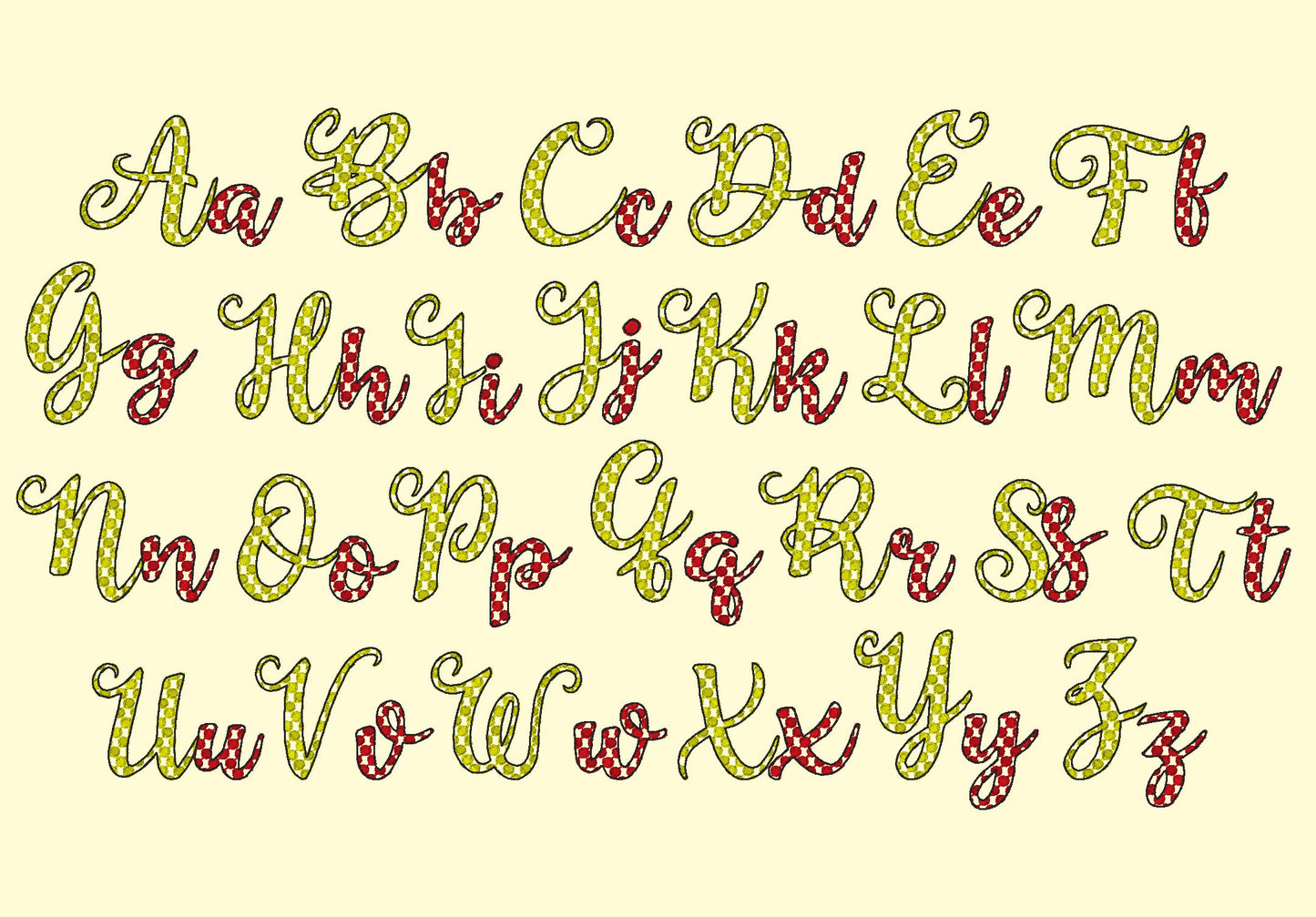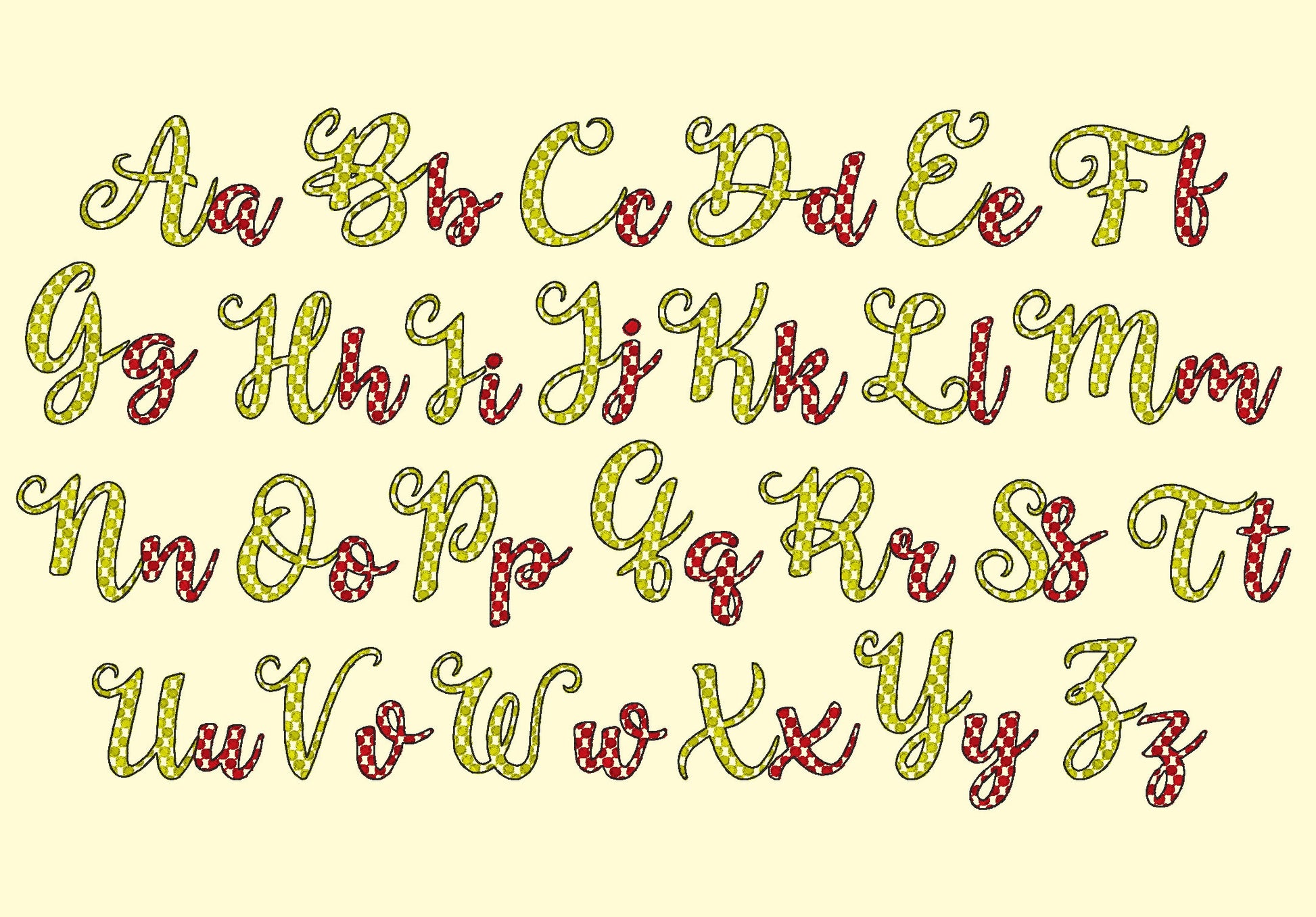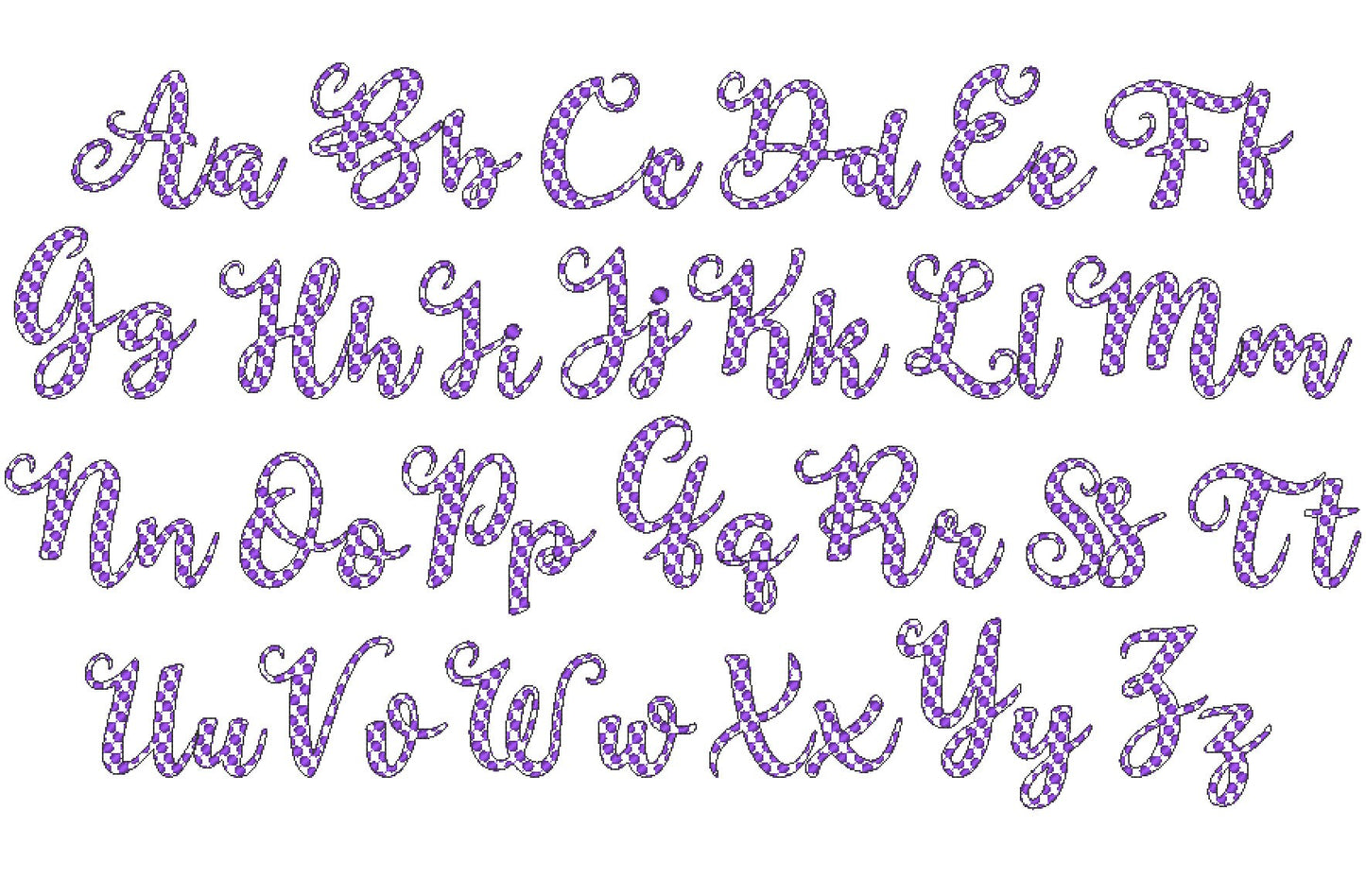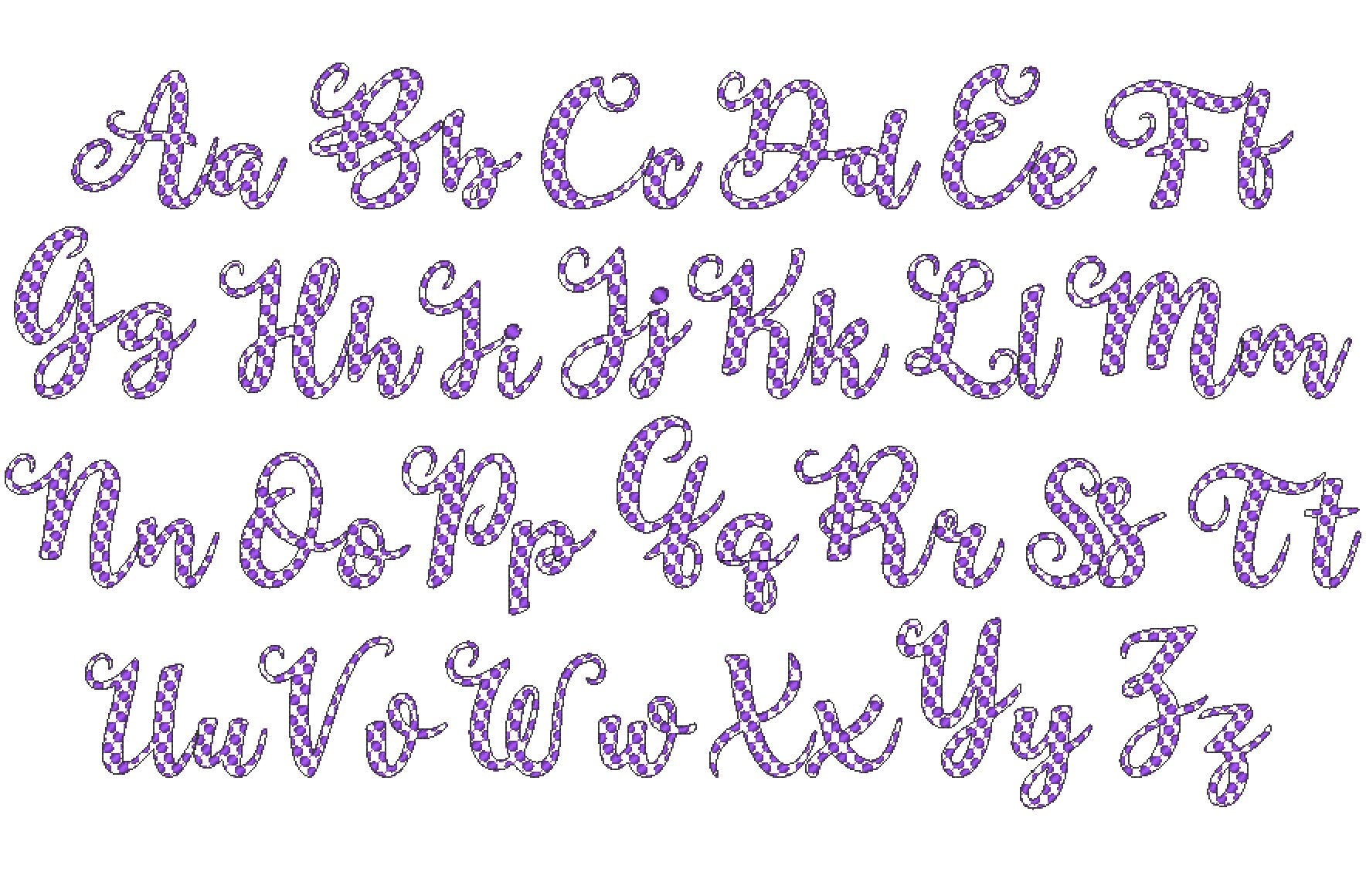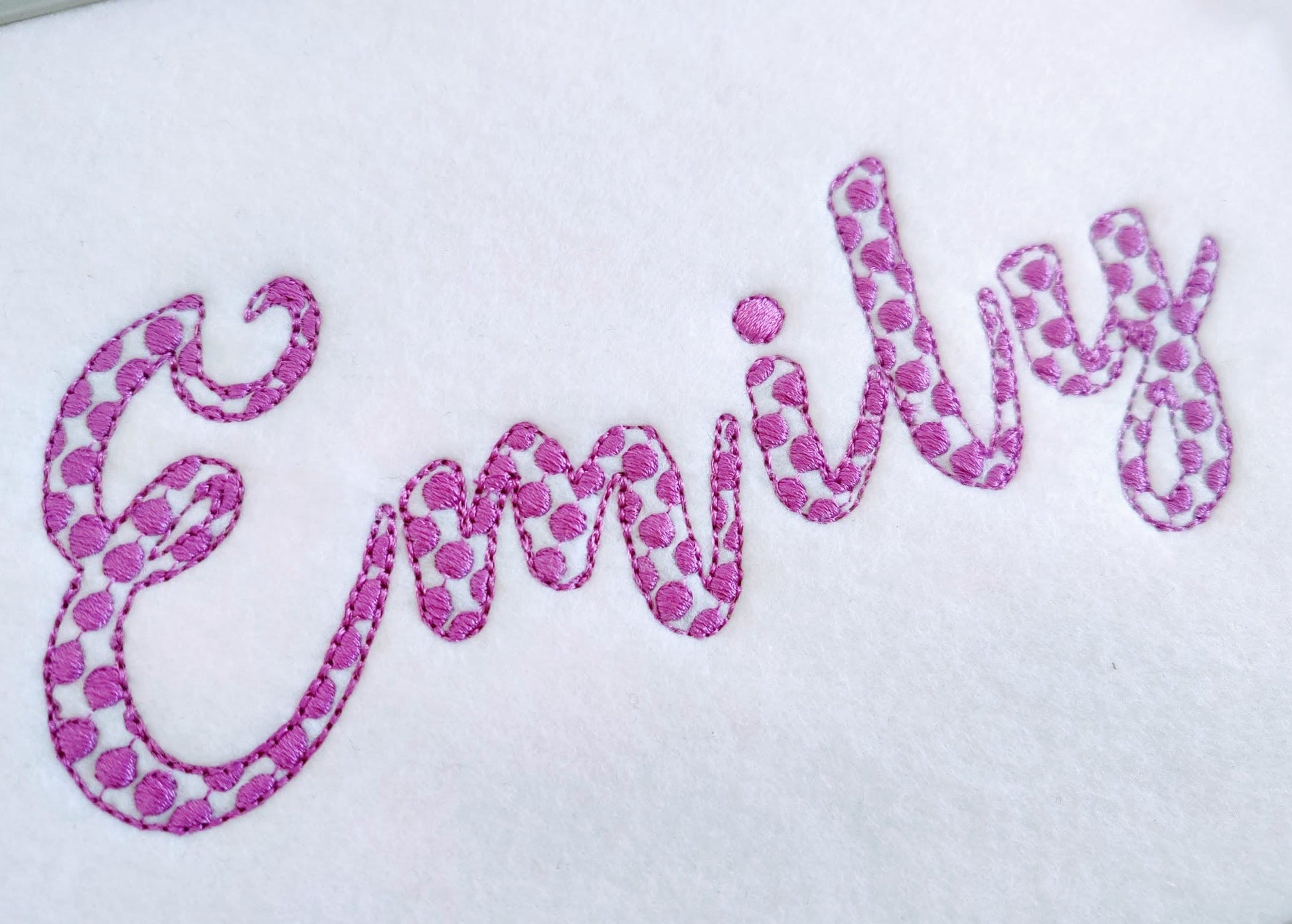
Or click to open the linkA polka dot script font with a light stitch and outline. Fun for girls' names, monograms, bags and party outfits.
A quick, light stitch: the polka dots are stitched into each letter, the outline frames it and the fabric shows through. Uppercase and lowercase letters A to Z in five sizes: 1.2, 1.6, 2, 2.8 and 3.5 inches.